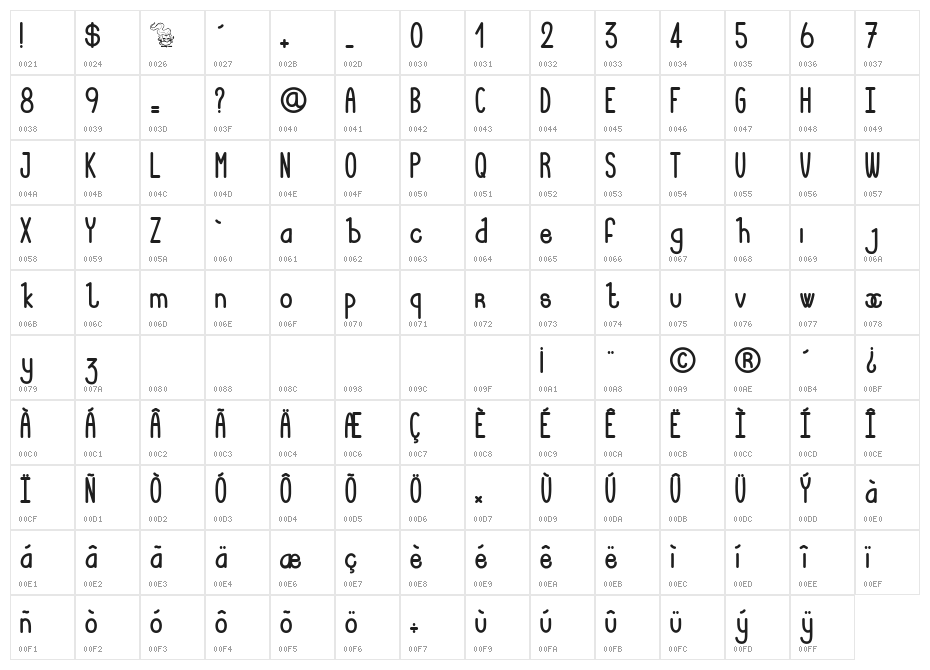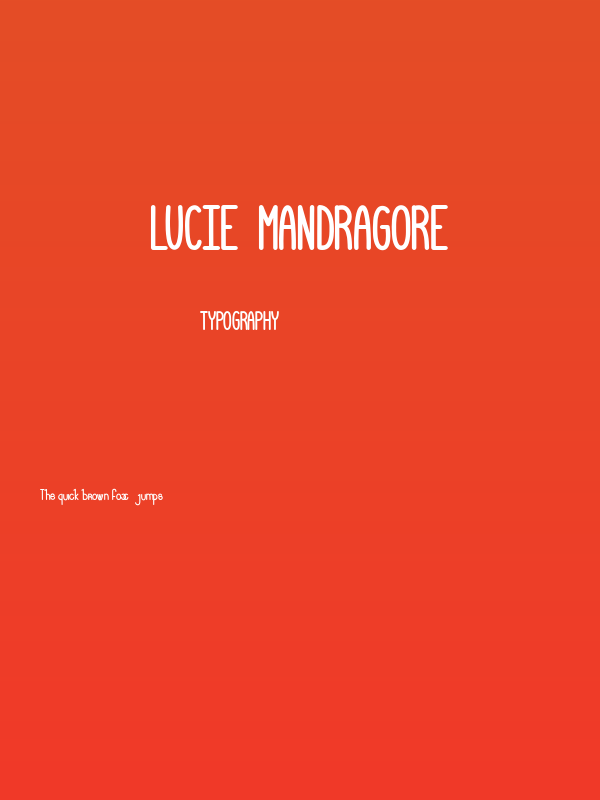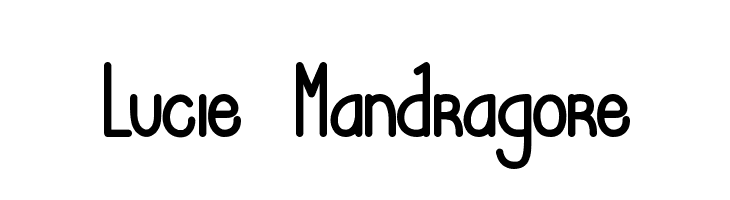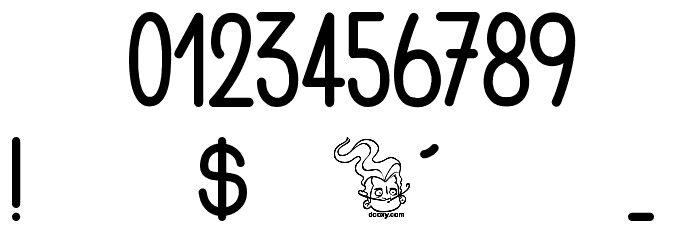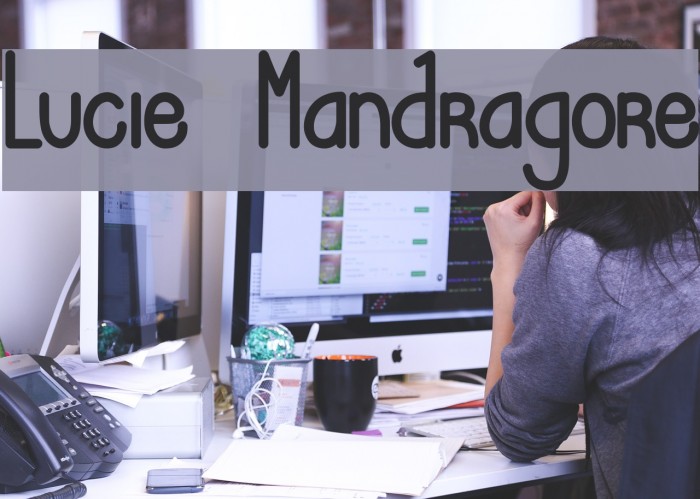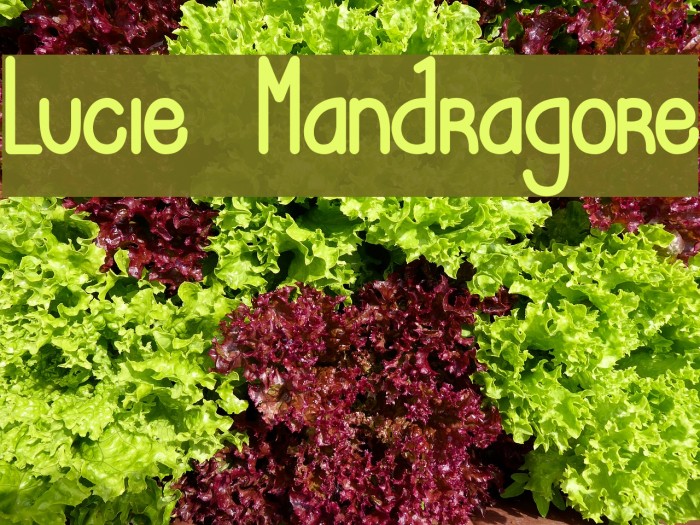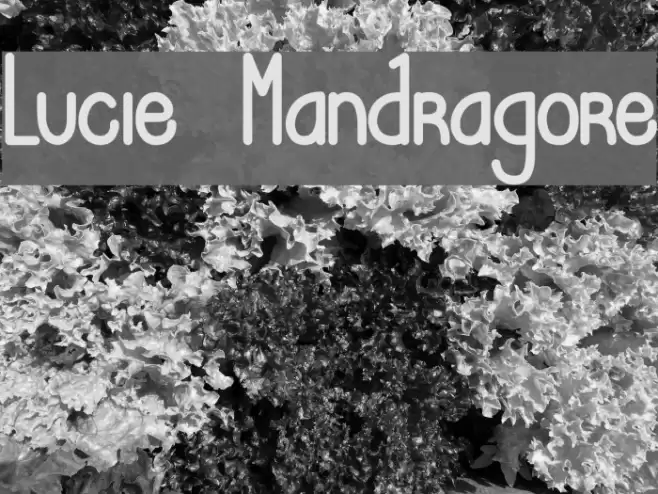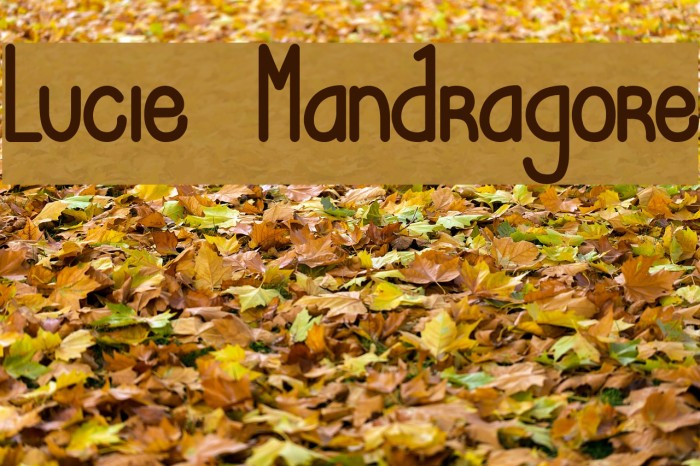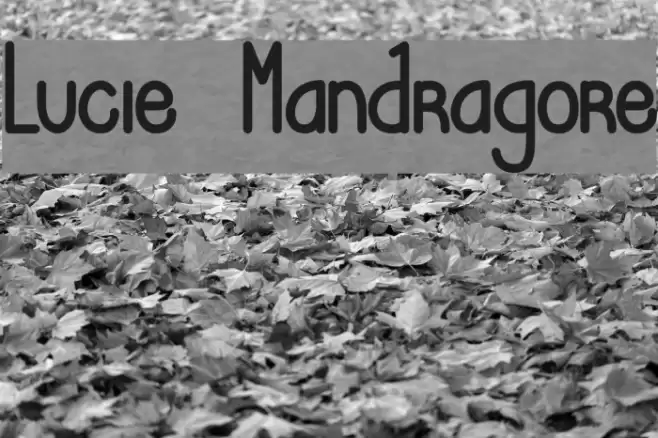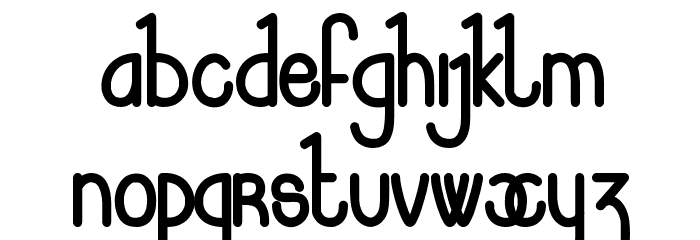
Lucie Mandragore Font
Lucie Mandragore Description
This font features a playful and whimsical design with rounded edges and a slightly condensed form. The characters exhibit a consistent stroke width, giving it a uniform appearance. The uppercase letters are tall and narrow, while the lowercase letters maintain a similar height, creating a cohesive look. The numbers are clear and easy to read, matching the style of the letters. Special characters are included, adding versatility. This font's unique style makes it suitable for creative and informal projects.
| Width | Condensed |
| Overall Style | Playful |
| Proposed Projects | Ideal for children's books, playful branding, greeting cards, and creative posters. |